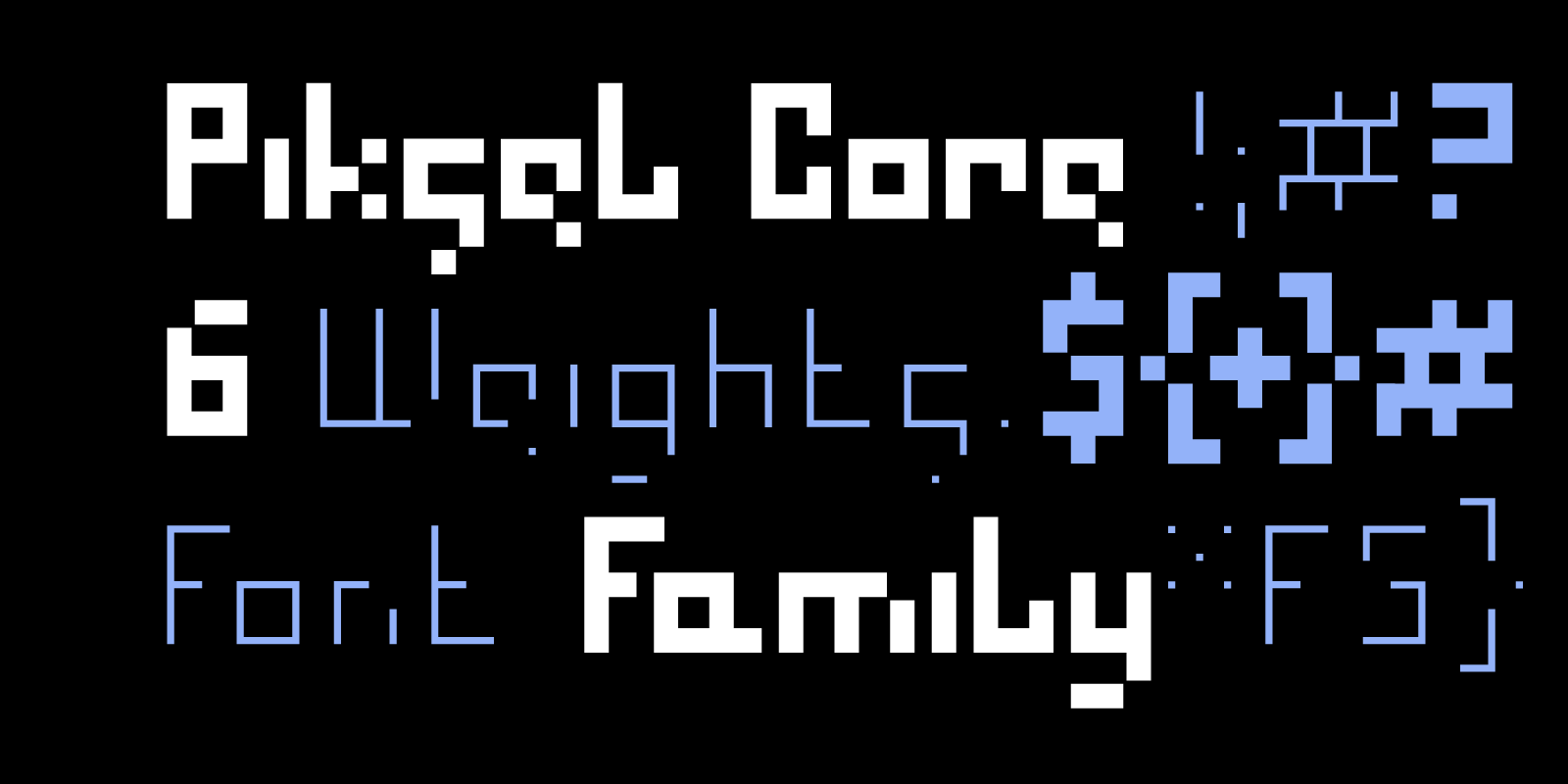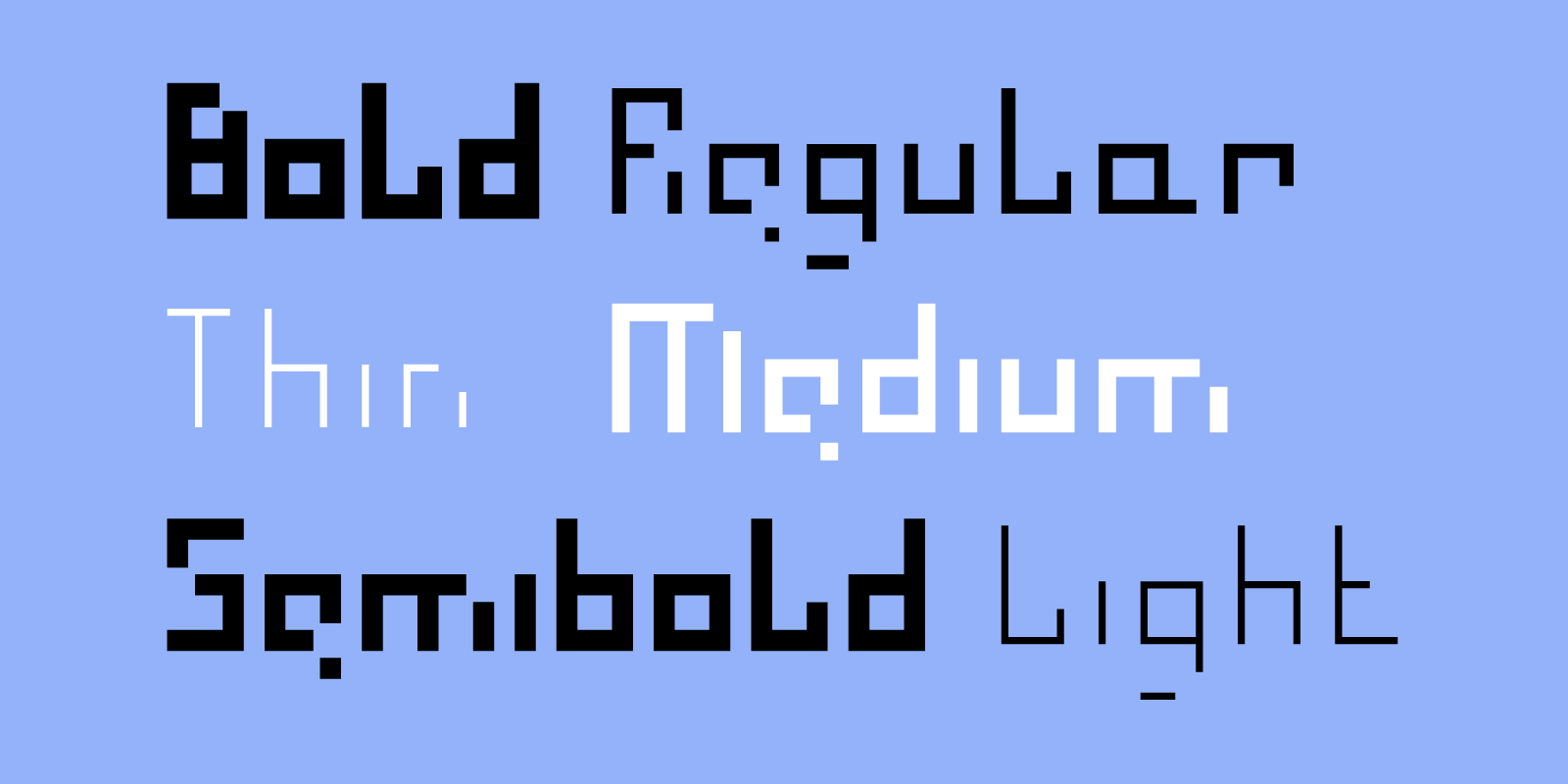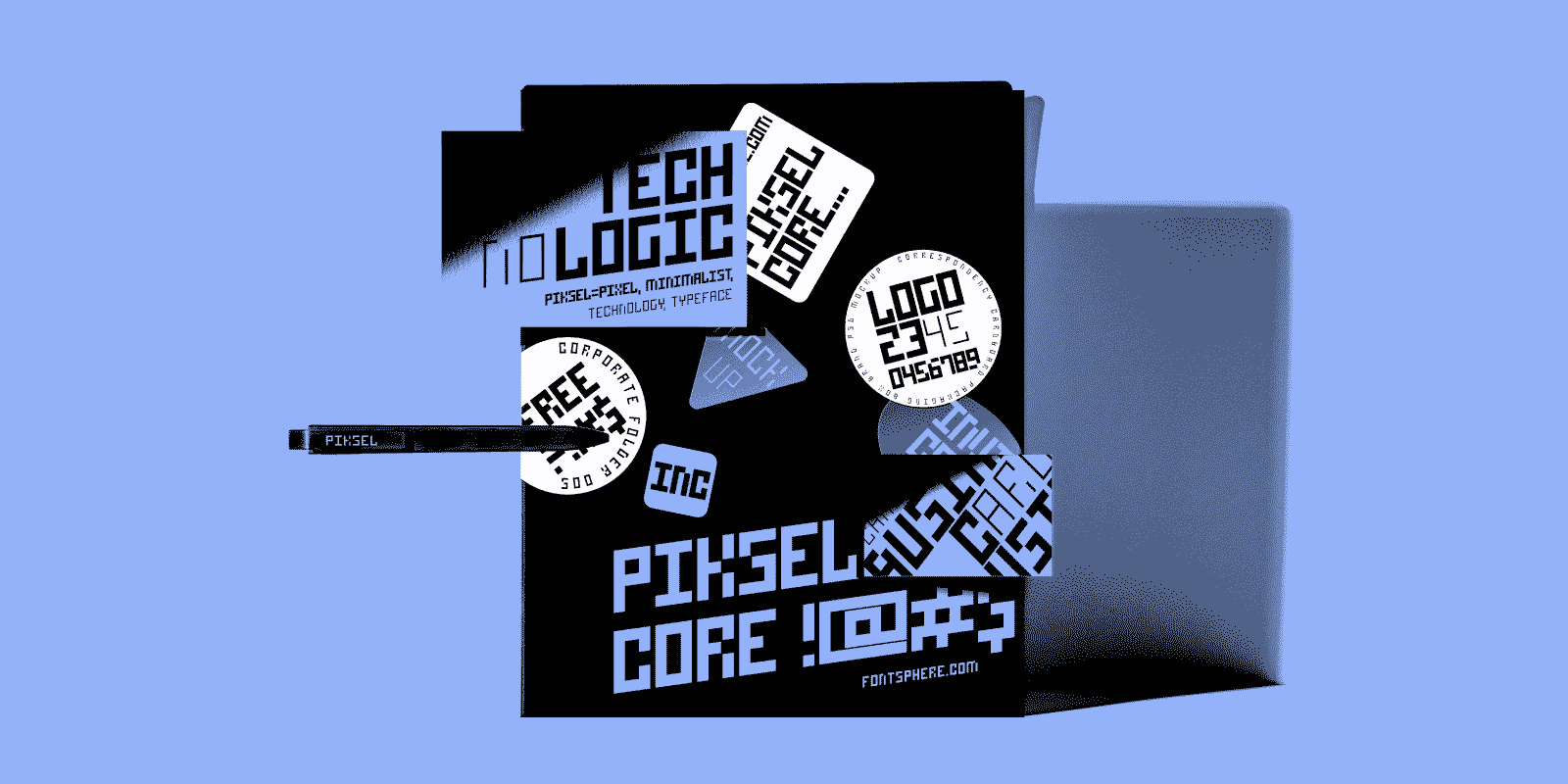
Type specimen layout displaying six different weights of Piksel Core font.
Piksel Core pixel font usage examples on business cards, notebooks, and merchandise items.
Piksel Core is a modular pixel type family built on a strict square grid, with no curves, no diagonals, and no compromises.
Every character focuses on ultimate balance and consistency, serving as a calmer, more functional counterpart to Piksel Core Mad. It includes both uppercase and lowercase letters, a rare feature in pixel fonts that brings actual flexibility to everyday use.
Each of the six weights (from 200 to 700) starts much thinner and cleaner, staying true to pixel logic while providing the perfect range for clear typographic hierarchy.
Visual weight comparison layout for Piksel Core showcasing bold, regular, thin, medium, semibold, and light styles.